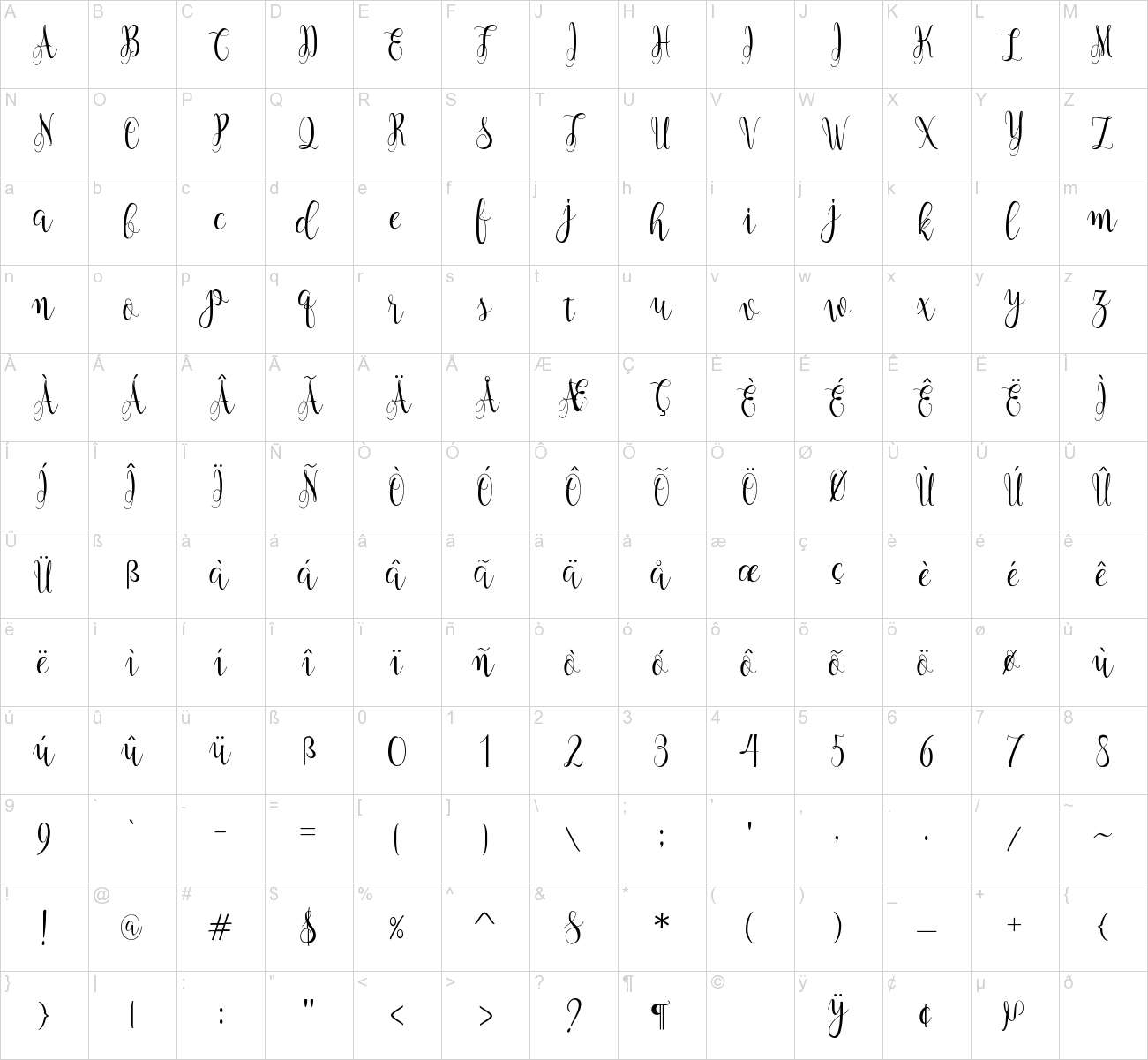
Annamelia Font in TTF and OTF formats. Ideal for branding, invitations, and stylish designs, it adds an artistic flair to any project.
Unveiling the Charm of Annamelia Font
Annamelia Font, crafted by Alex Johnson in 2023, is a chic handwritten typeface that radiates creativity and individuality. This font is perfect for projects that demand a personal touch, such as branding, invitations, and social media graphics.
Key Features and Formats of Annamelia Font
Available in TTF and OTF formats, Annamelia Font is designed to seamlessly integrate with popular design software like Adobe Creative Suite and Canva. With its flowing lines and elegant curves, it’s a versatile choice for modern design needs.
The Inspiration Behind Annamelia Font
Inspired by the whimsical beauty of handwriting, Annamelia Font was developed to bring a lively and artistic element to digital typography. Alex Johnson focused on creating a font that captures the essence of human expression, making it unique and engaging.
Ideal Uses for Annamelia Font
Annamelia Font is perfect for a wide range of applications, including personal invitations, creative branding, and stylish web design. Its unique style ensures that it will stand out, whether in print or digital formats.